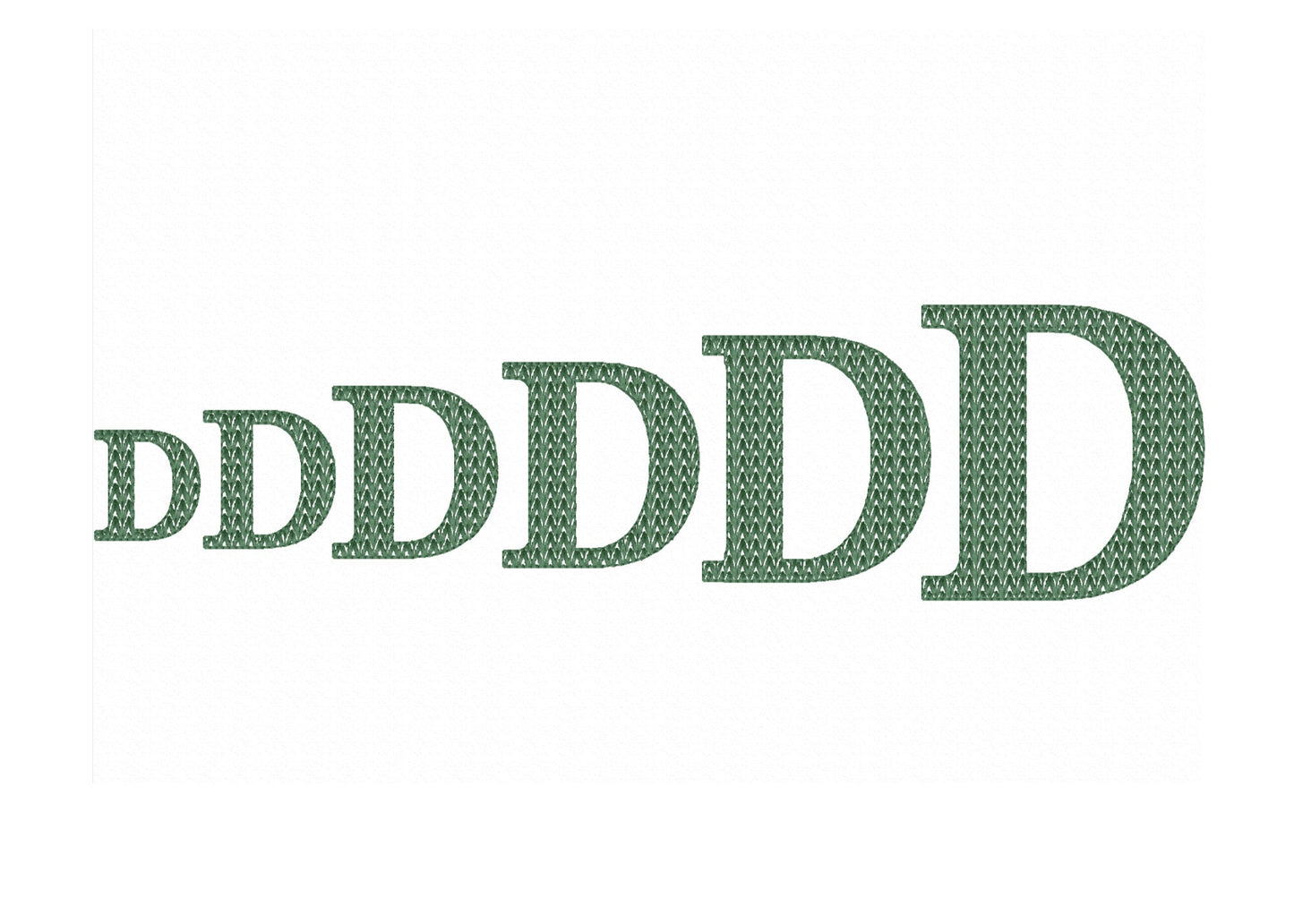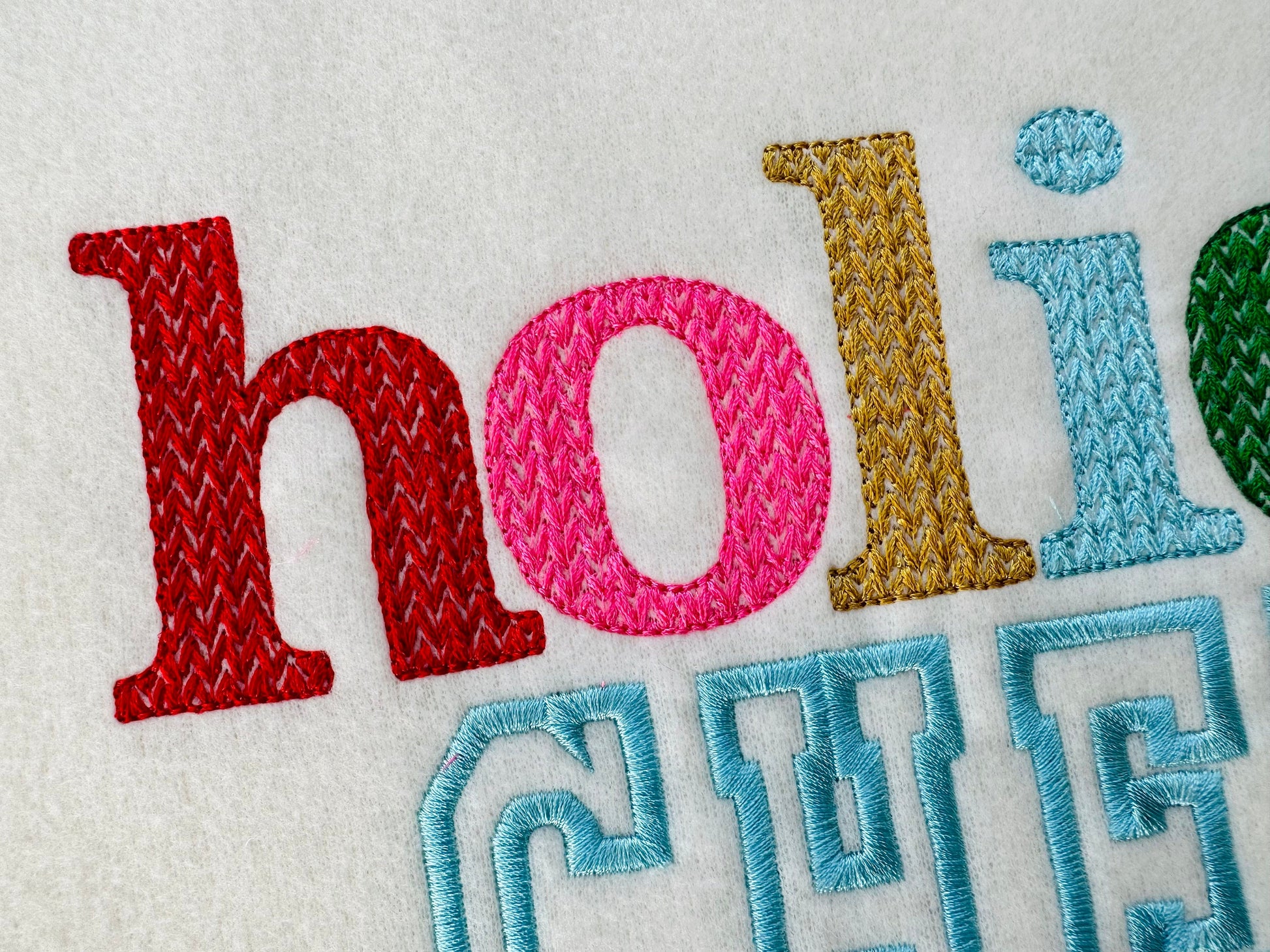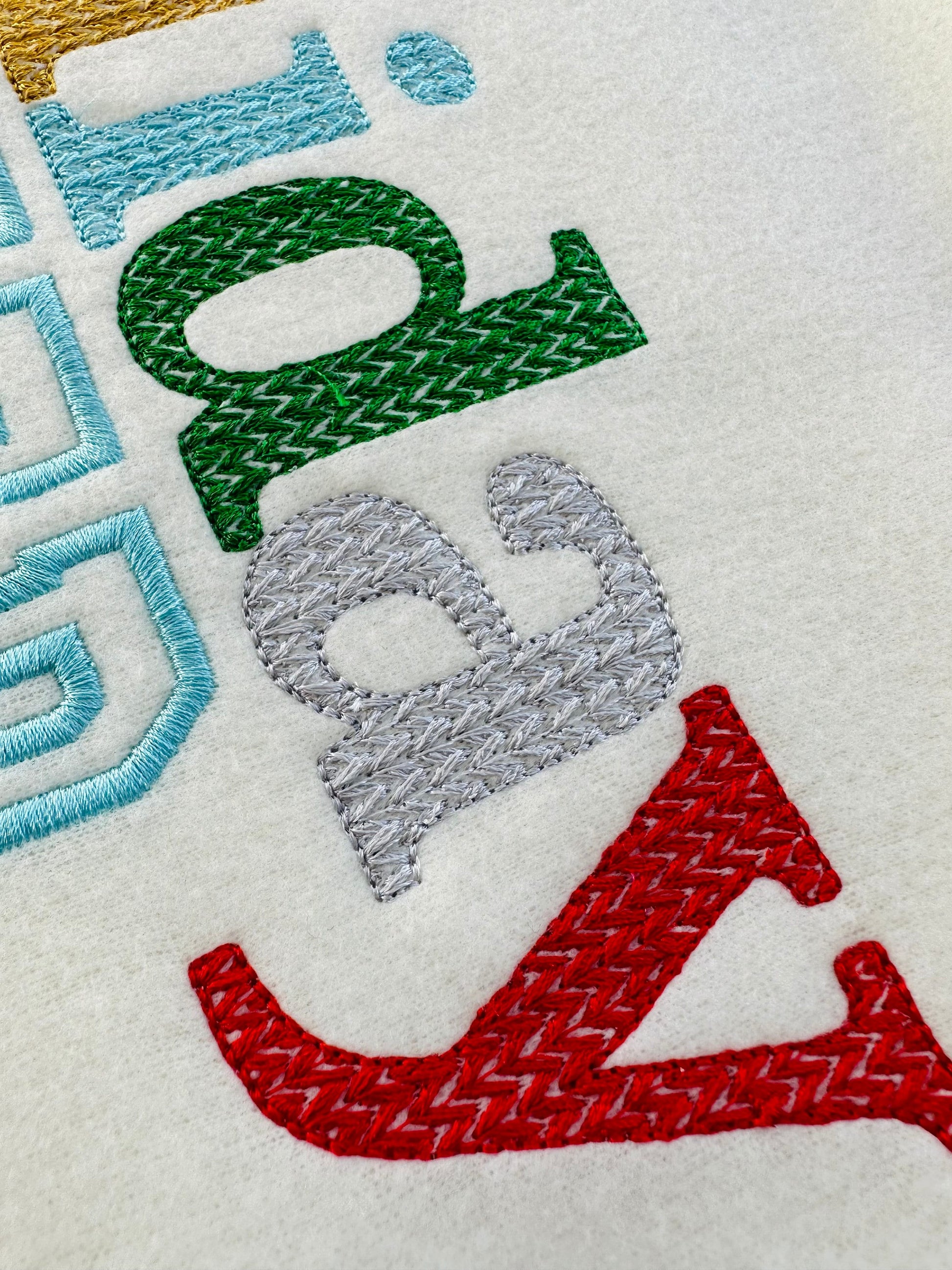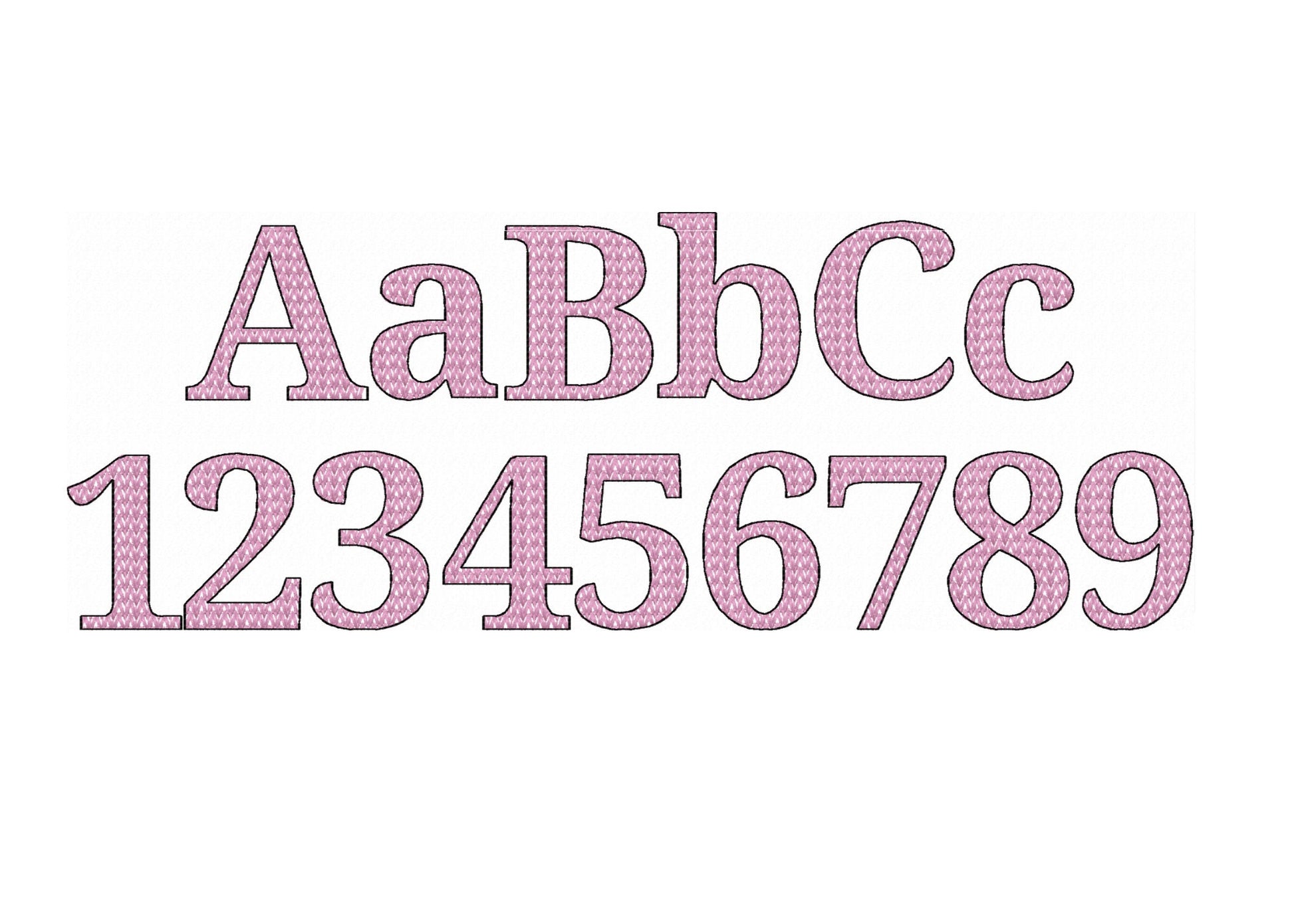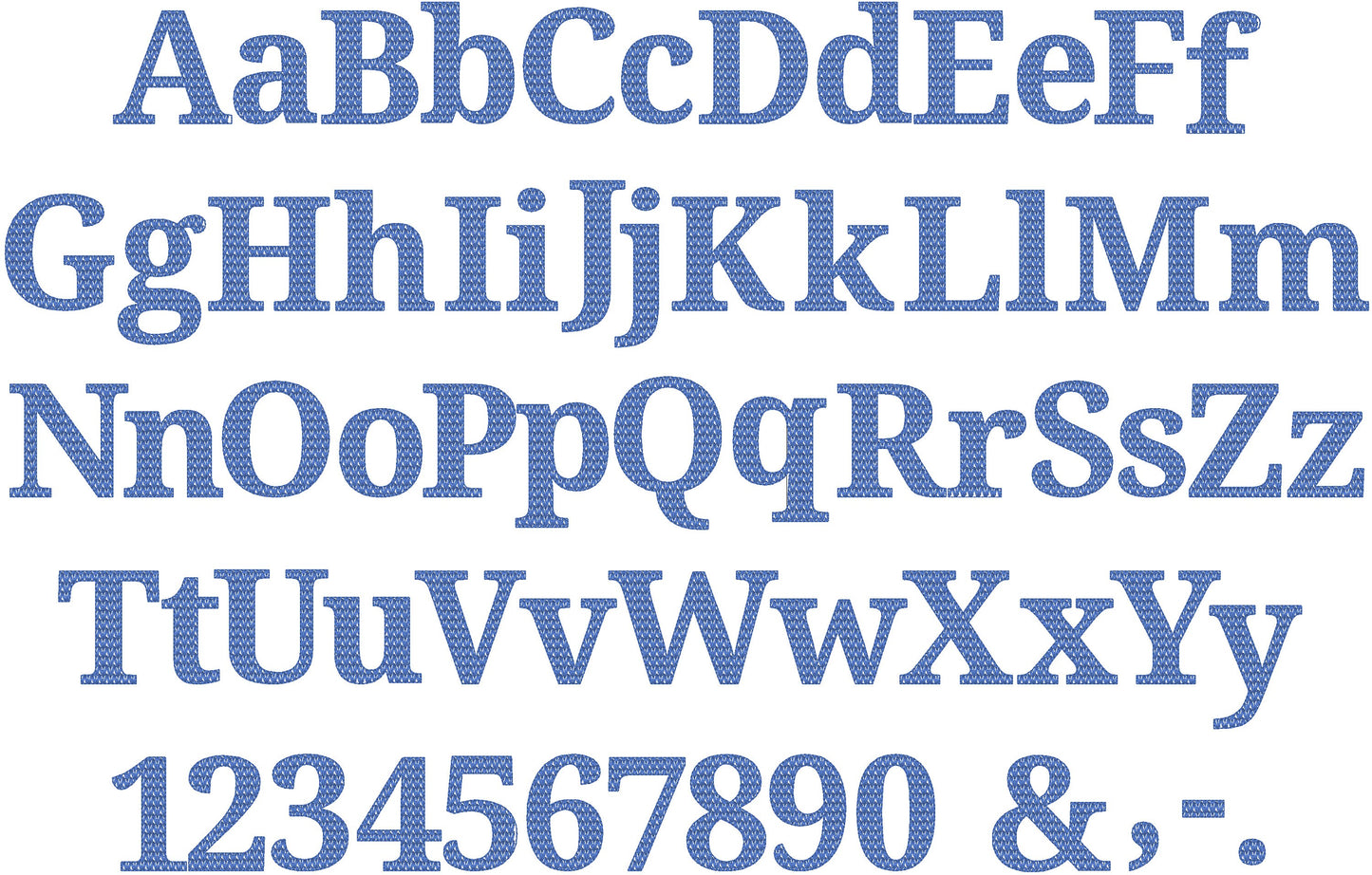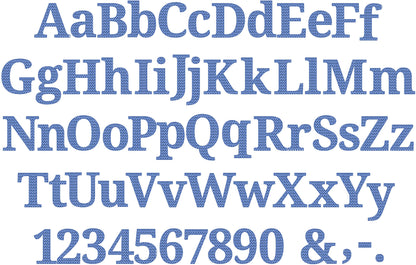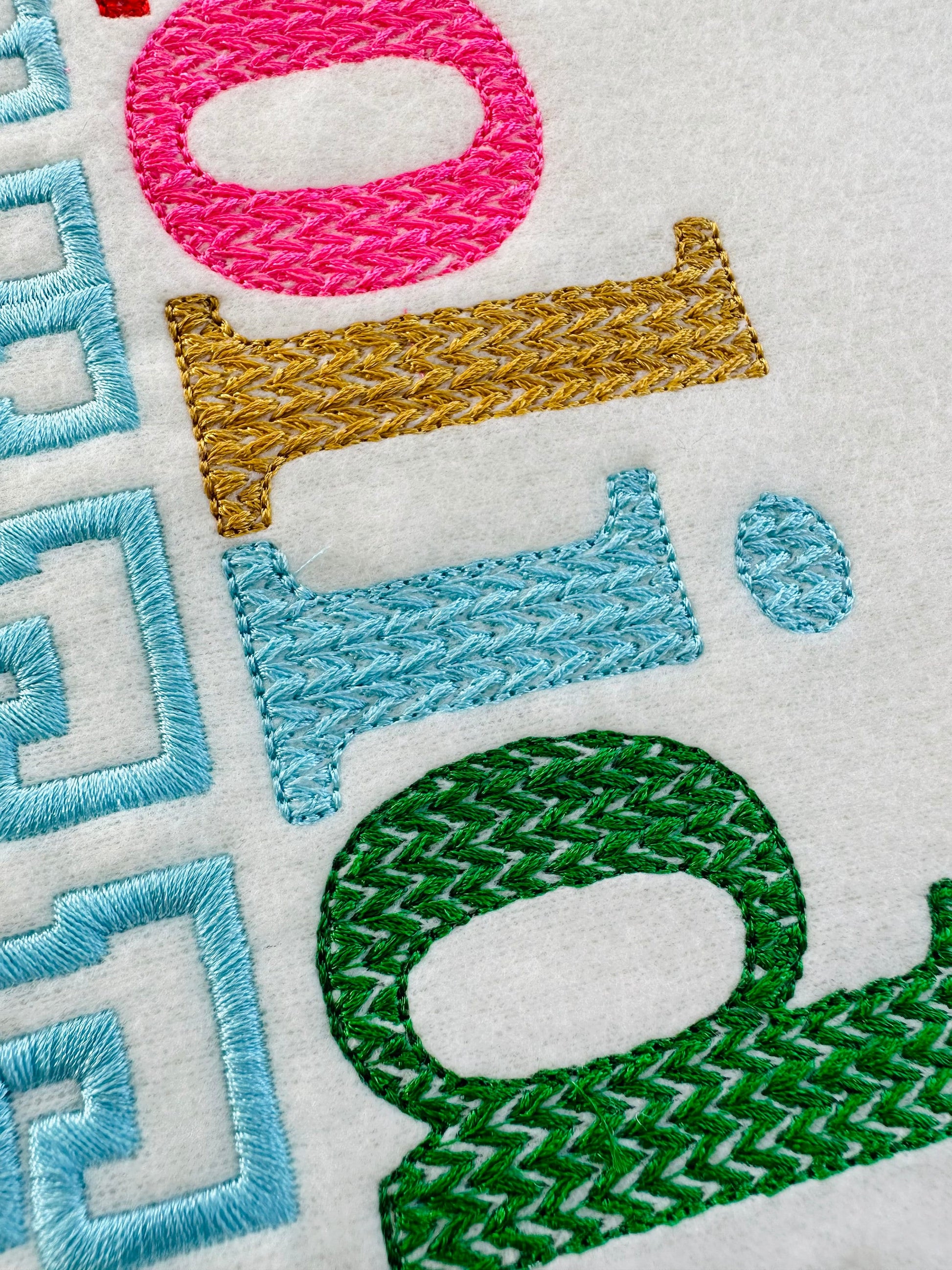
Or click to open the linkA sheriff block font with a knitted sweater look in light stitch, for names and words on sweaters, hats and shirts.
The knit stitch texture is part of the embroidery. Uppercase and lowercase letters, numbers and punctuation in six sizes: 1.2, 1.5, 1.8, 2.2, 2.7 and 3.2 inches.